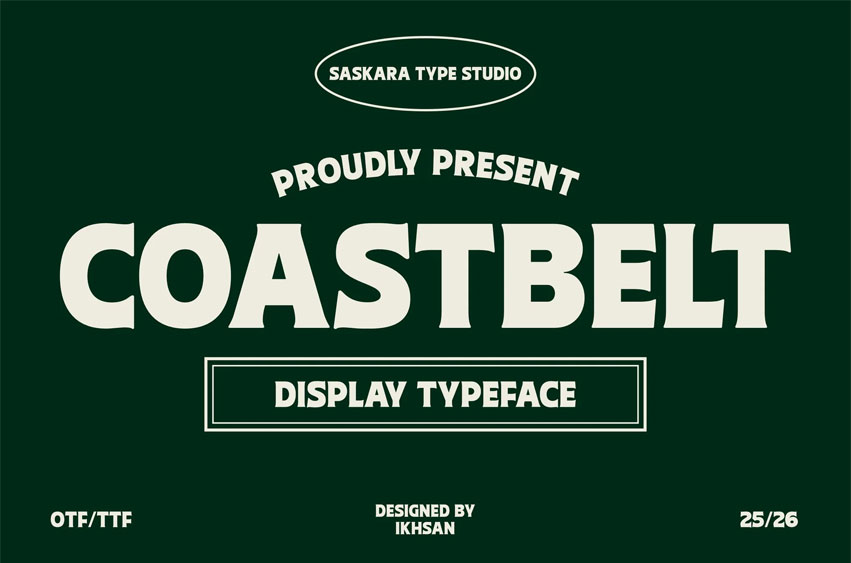
Coastbelt Font is a Vintage Modern font that blends the rugged charm of industrial retro lettering with the clean precision of contemporary design. With bold strokes, strong curves, and subtle vintage details, Coasbelt brings both character and versatility to your creative projects.
**Branding & Logos ** Coffee shops, barber shops, apparel, craft brands.
Packaging & Labels for handmade goods, artisanal products.
Posters & Signage Retro-style advertisements, event flyers, bold headlines.
Merchandise lifestyle products.
Editorial & Print Magazines, book titles, and cover designs.
With its masculine yet refined look, Coasbelt stands out as a typeface that connects tradition and modernity, making it a powerful choice for designers who want timeless appeal with a contemporary twist.